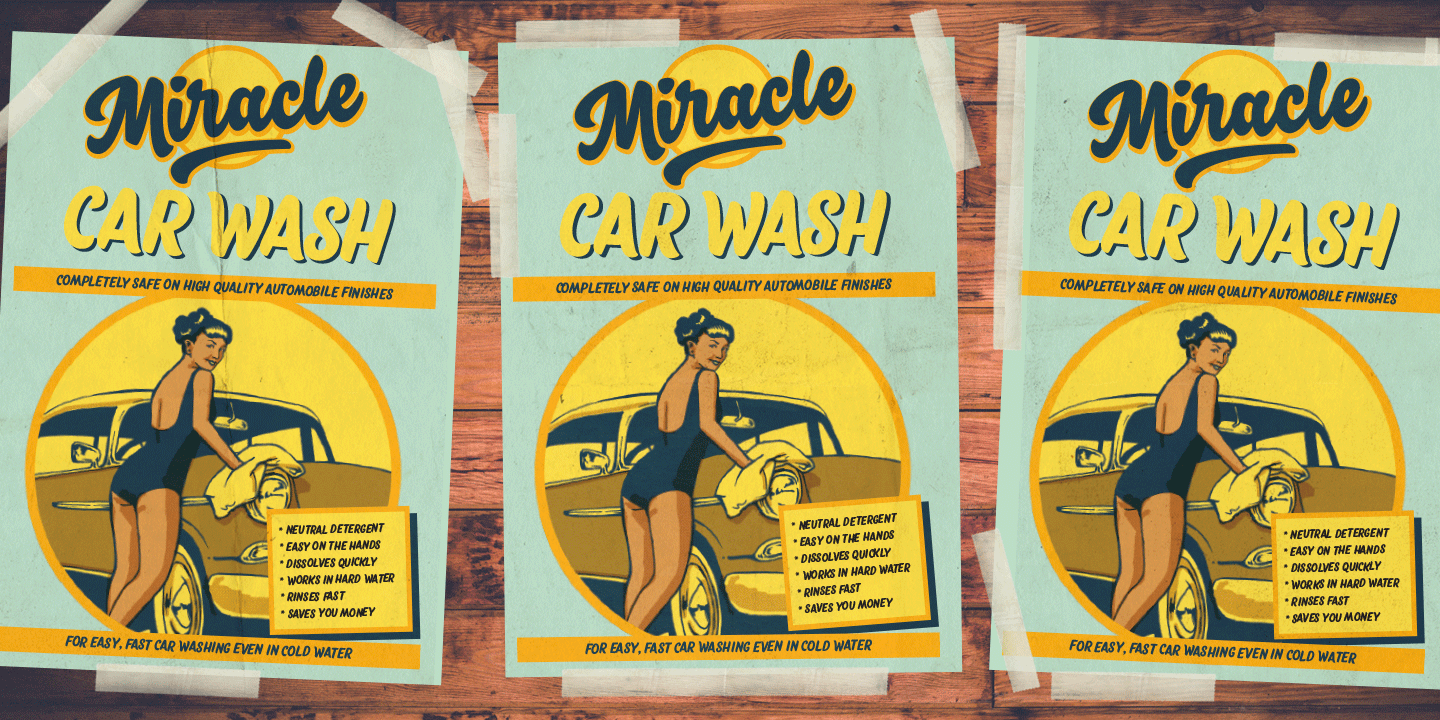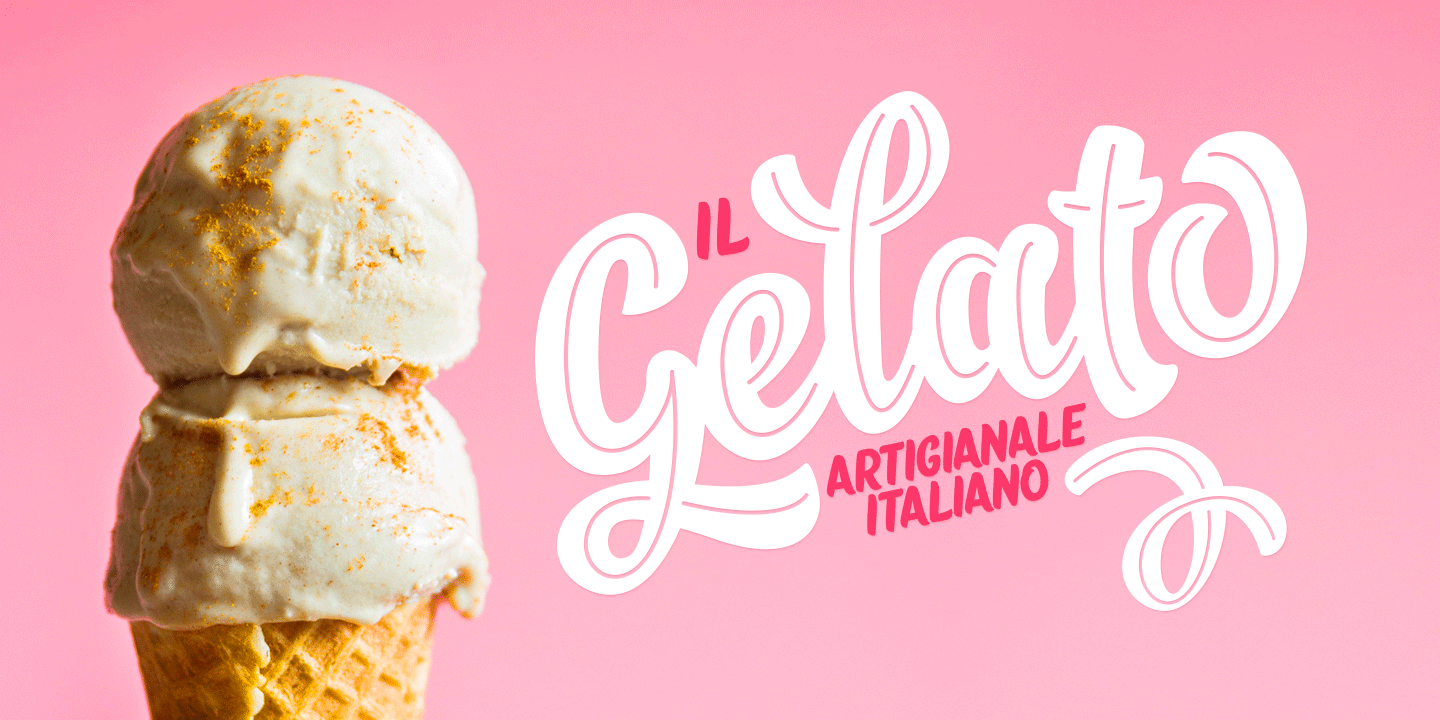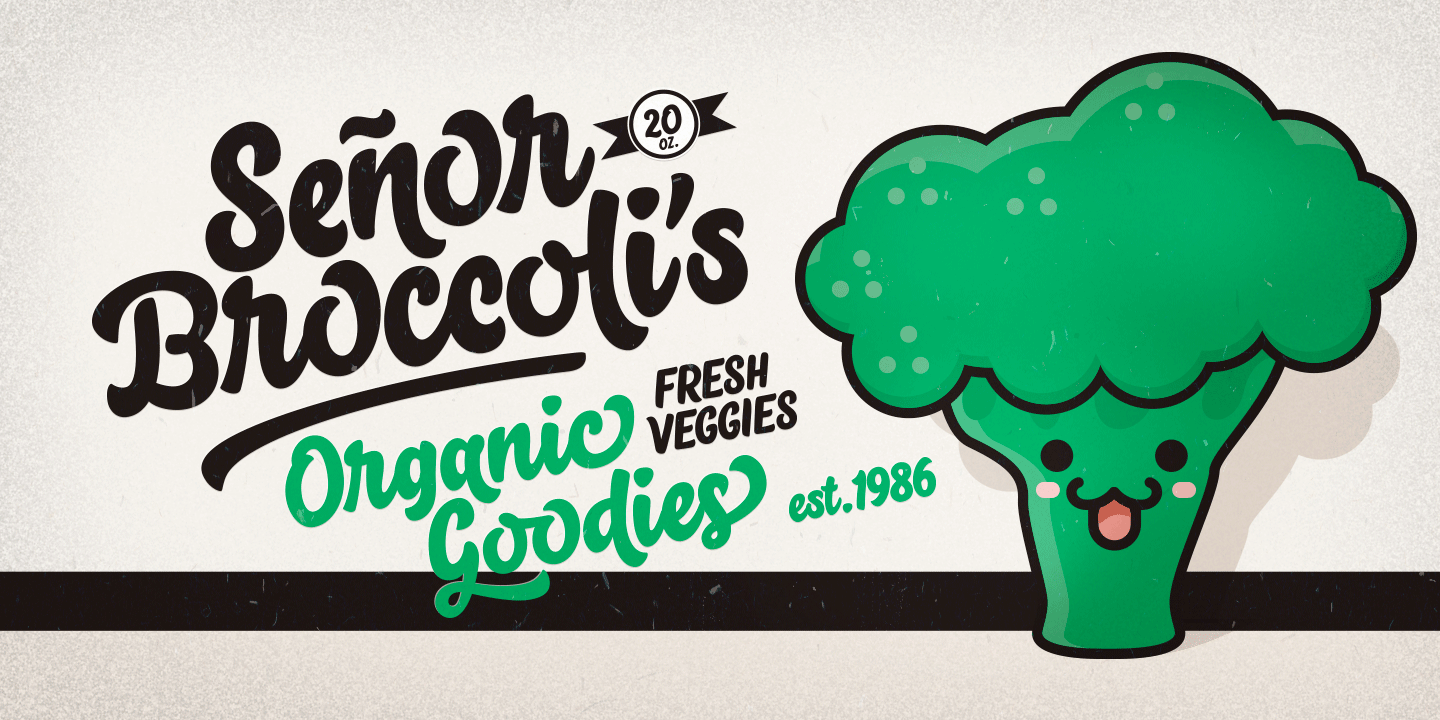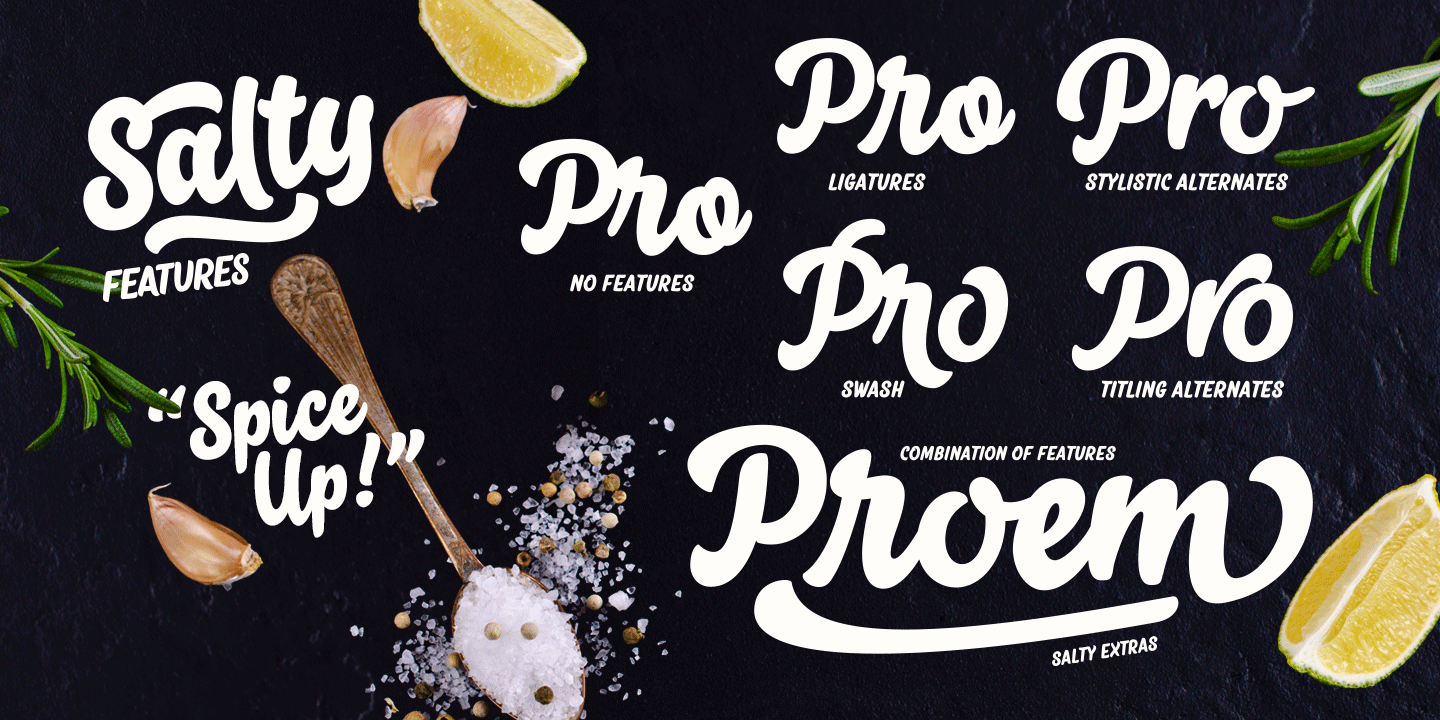
About Salty
Salty – not fat just big boned. Salty is a hearty brush family that\’s great for any kind of display use from packaging to poster & logos to headlines. Salty has bold and clear basic letterforms and lots of alternates for more customized look. Salty…